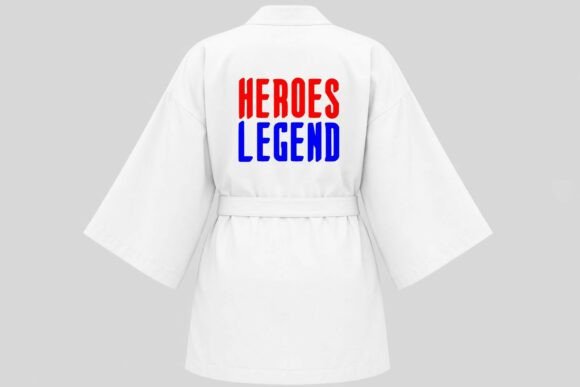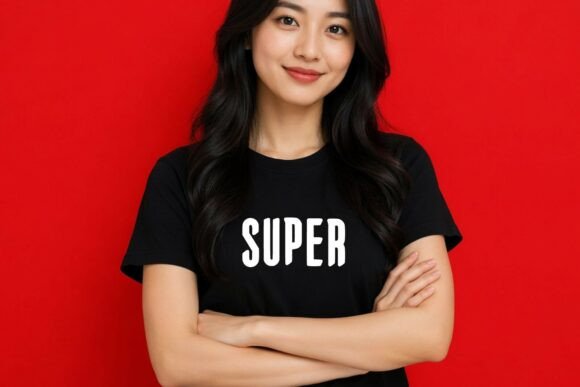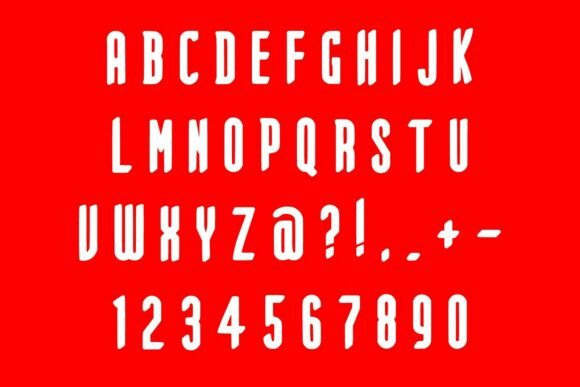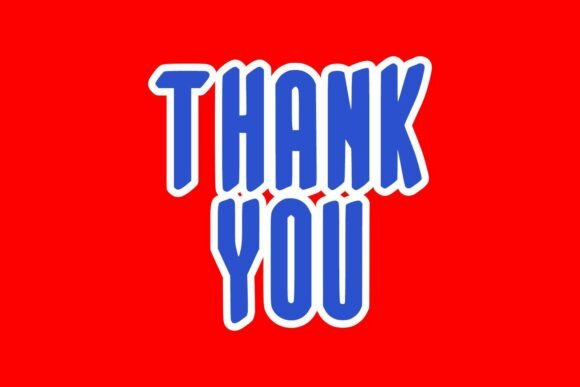
Introduction to Hokaido Font
Have you ever been stuck on a creative project, searching for the perfect font to make your design pop? You scroll through your font library, but nothing seems to fit the vibe you’re going for. That’s when you stumble upon the Hokaido Font – a game-changer for designers looking to add some personality to their work.
As a designer, you understand the importance of having high-quality fonts at your disposal. A great font can make all the difference in creating a visually appealing design that leaves a lasting impression. With its bold and modern style, the Hokaido Font is an excellent choice for designers seeking a fresh and contemporary feel for their projects.
Whether you’re working on a fun and playful design or a professional branding project, the Hokaido Font is a versatile design resource that can be used with a transparent background, making it perfect for social media graphics, posters, and packaging designs. And the best part? It’s available for free download, making it an excellent addition to any designer’s library.
Key Features of Hokaido Font
- High-quality design for various creative projects, including graphic design, web design, and digital art.
- Designed with a transparent background, allowing for easy customization and layering in design projects.
- Resolution-independent, ensuring crisp and clear text display regardless of screen resolution or size.
- Perfect for designers working on projects that require a unique and stylish font, such as logos, typography, and branding materials.
Honest Review: Hokaido Font
I recently stumbled upon the Hokaido Font, and I must say it’s been a pleasant discovery. This free download has been a valuable addition to my design resources. I’ve been using it for a creative project, and the results have been impressive.
- High-quality design that’s perfect for modern projects ✨
- Easy to read, even on a transparent background ✨
- Limited font styles and weights ⚠️
Overall, I’m impressed with the Hokaido Font. While it may not be perfect, it’s a great addition to any designer’s toolkit. With a little creativity, you can achieve some amazing results. I’d definitely recommend it for any creative project that requires a clean and modern look.
Tips for Getting the Most Out of Hokaido Font
The Hokaido Font is ideal for various design resources, including logos, posters, and business cards. Its unique design makes it perfect for creative projects that require a high-quality and visually appealing font.
Comparison to Hokaido Font: Montserrat Font has a more angular and geometric look compared to Hokaido Font’s rounded and playful feel.